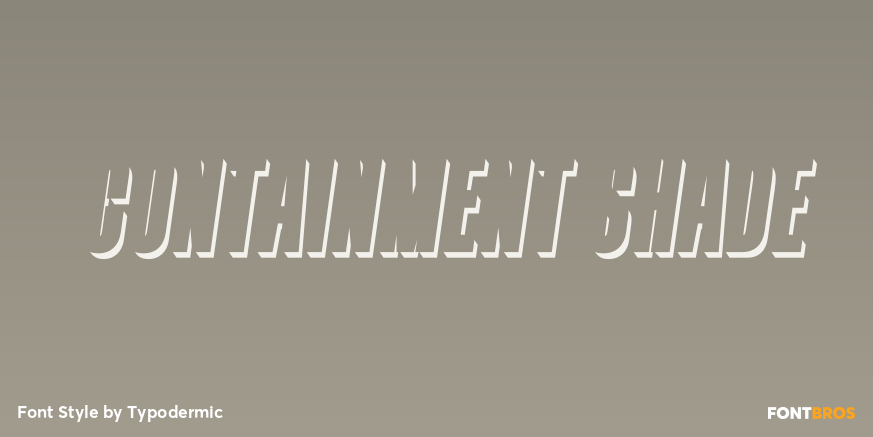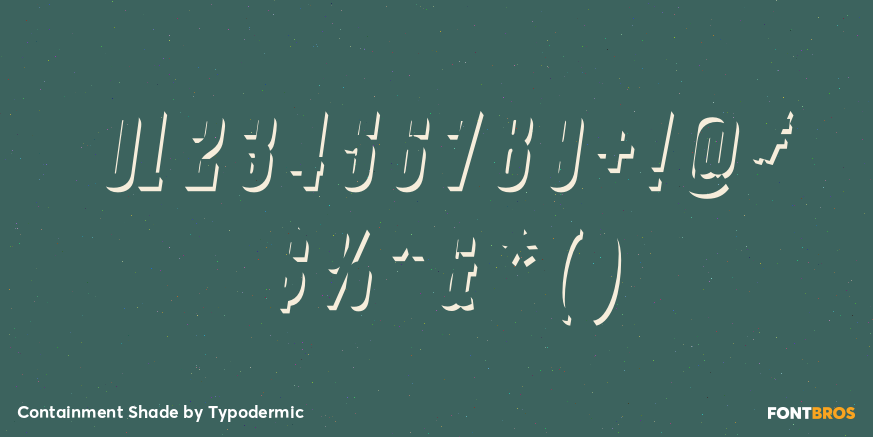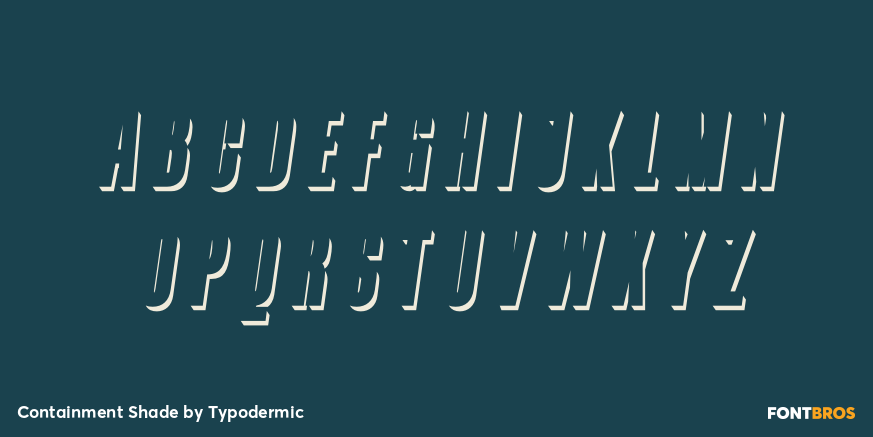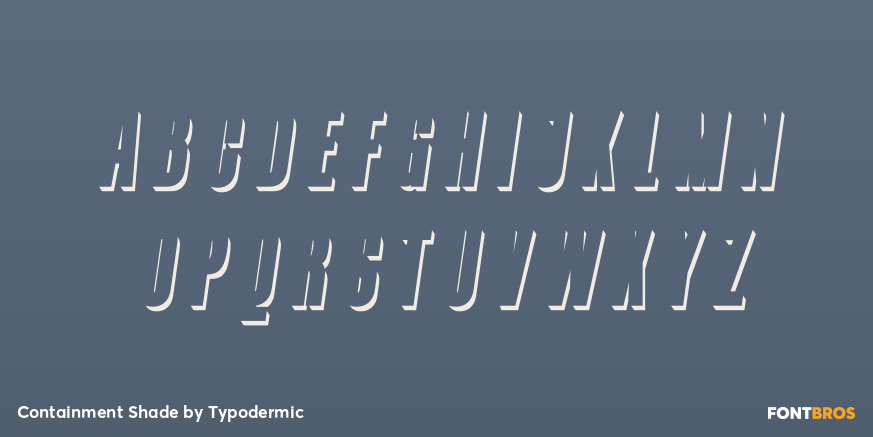
Containment Shade
Buy NowContainment Shade isolates the angled dimensional edge in the family’s layered system. On its own it reads as a sliced, fast-moving shadow; aligned beneath Containment Solid, it supplies depth and direction without forcing the face and particle texture to share the same color.
Use Shade as the contrast layer in rally broadcasts, racing posters, snowboard graphics, equipment launches, and industrial campaigns. Give it a darker tone, metallic accent, or motion color beneath Solid, then add Sparkle separately when gravel, snow, grit, or confetti needs independent control.